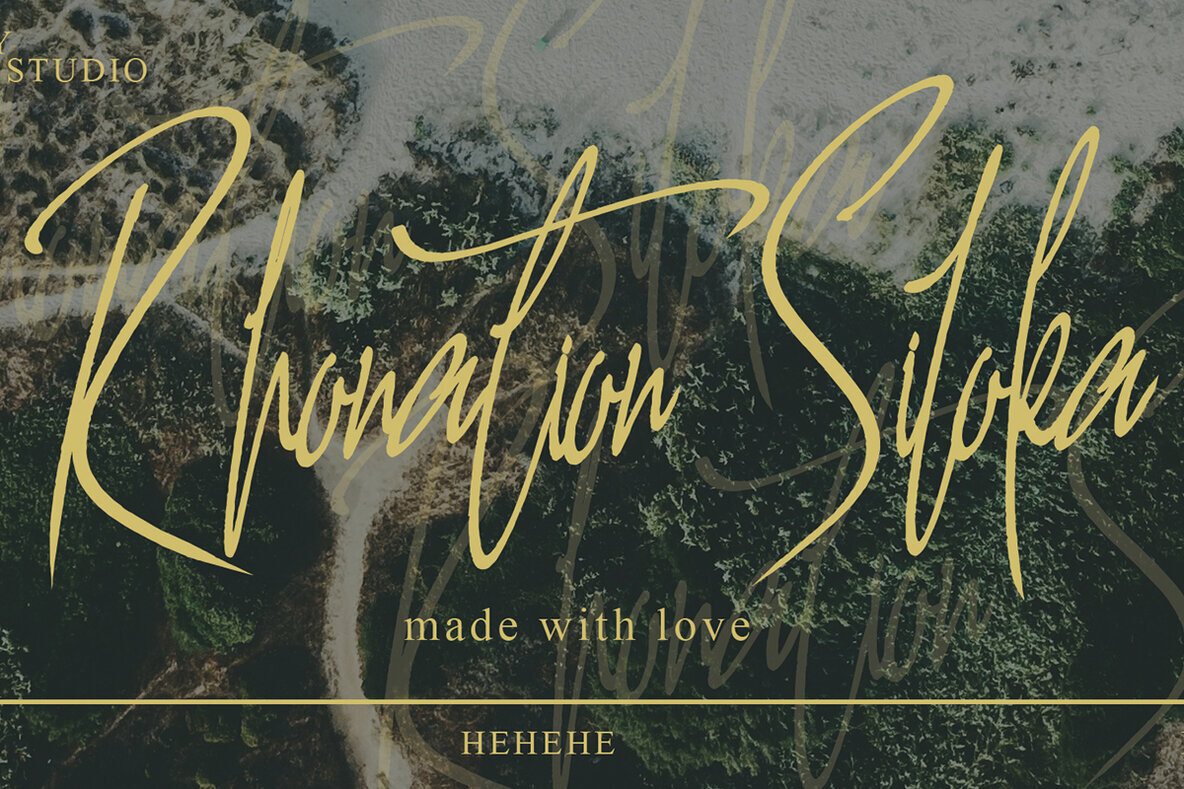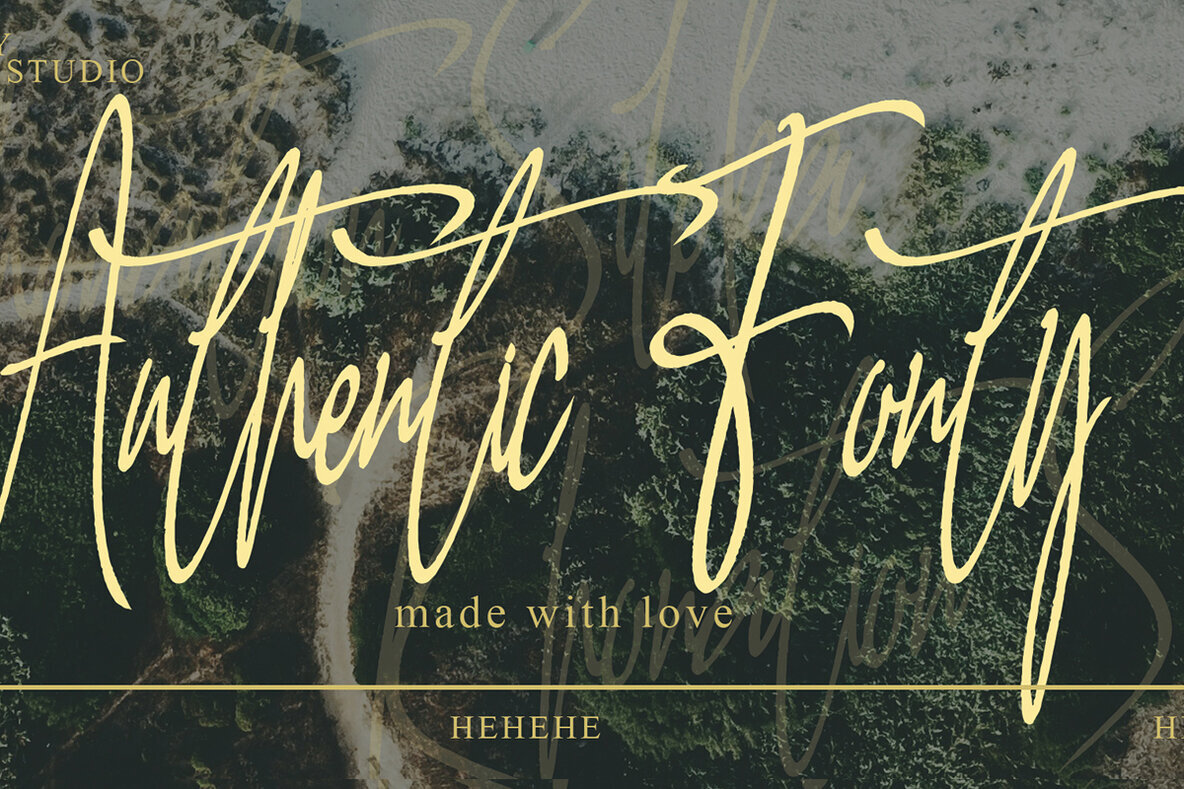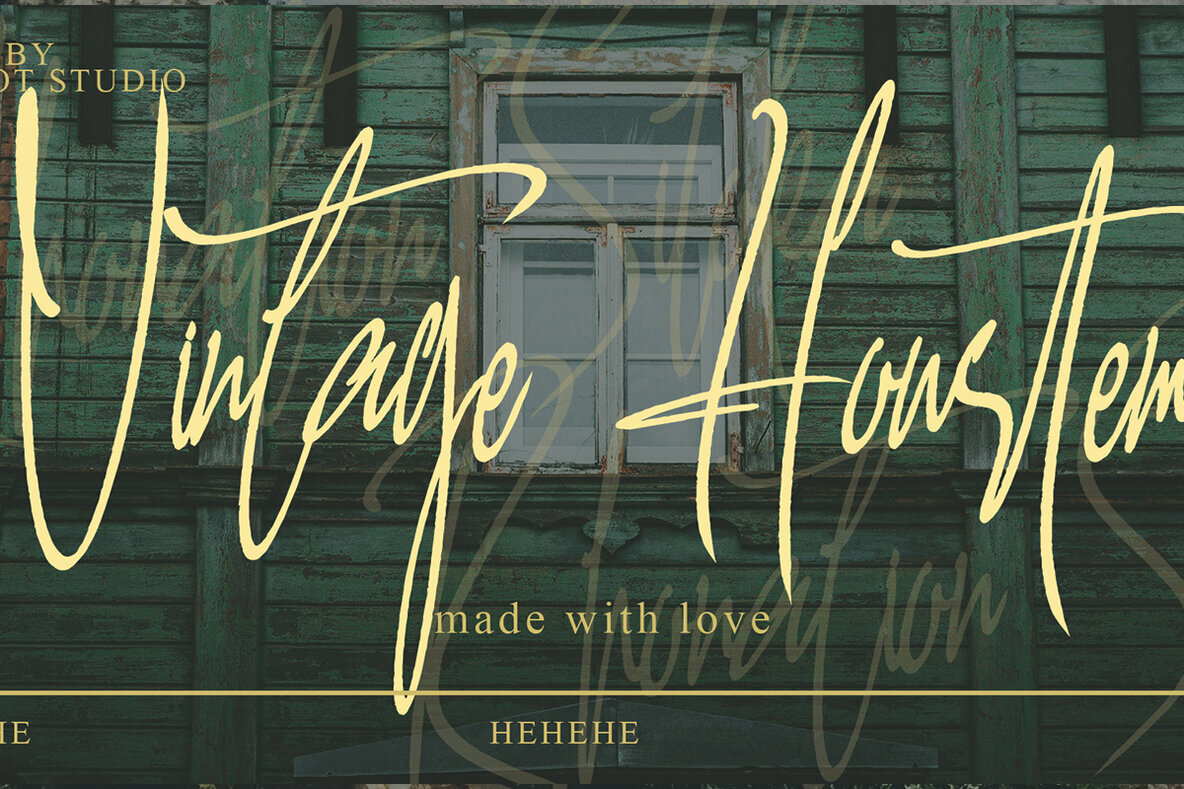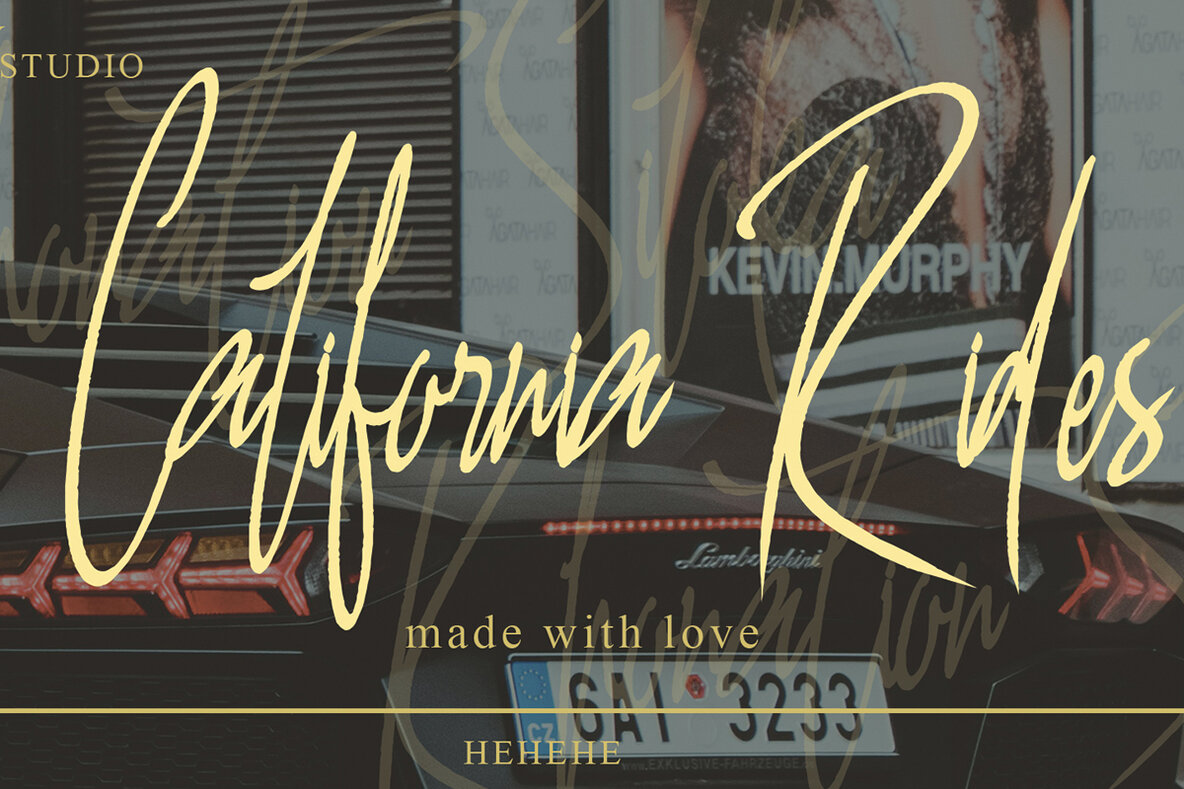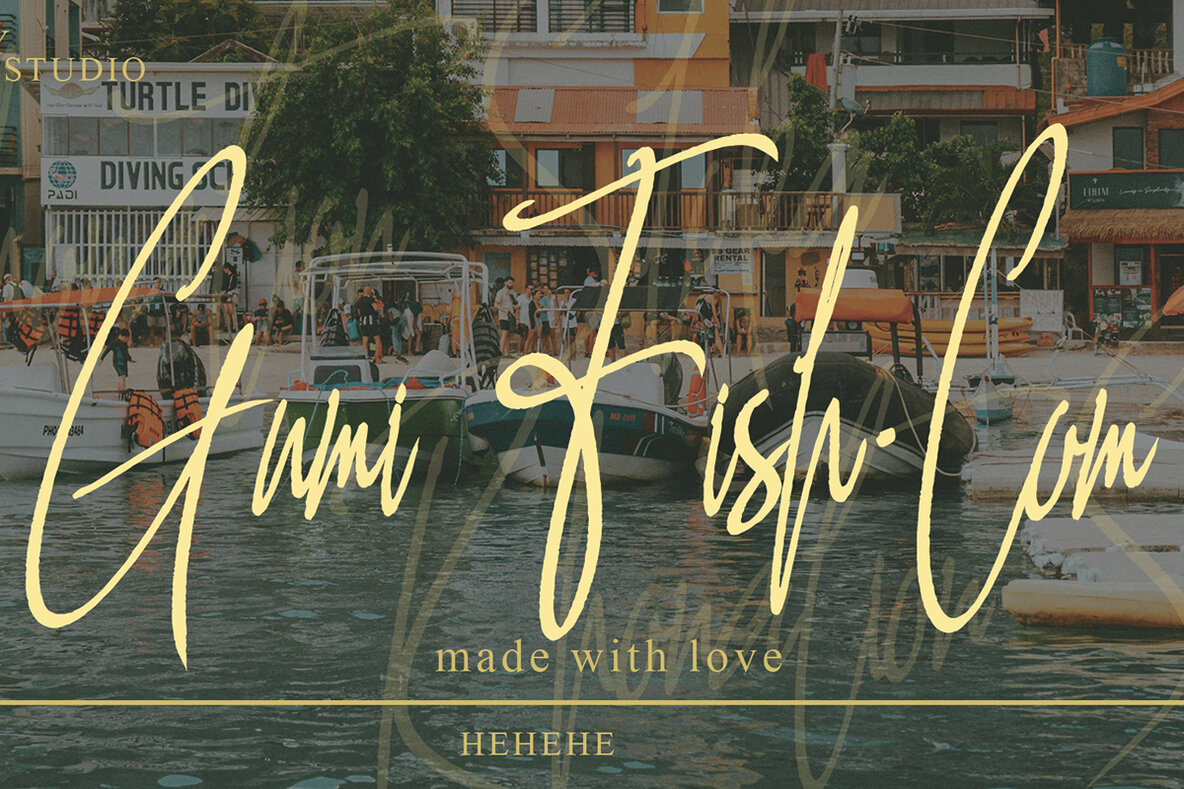
Rhonation Syloka Font
Rhonation Syloka
Rhonation Syloka presents a fresh approach to type, offering a distinct style that adapts effortlessly to a wide range of creative projects. This font captures attention with its expressive curves and thoughtful spacing, allowing designers to bring character to various compositions. Rhonation Syloka is well-suited for memorable quotes, modern logos, and bold blog headers. Its organic shapes provide visual interest in posters, branded materials, and editorial layouts.Rhonation Syloka: Expressive Letterforms for Versatile Design